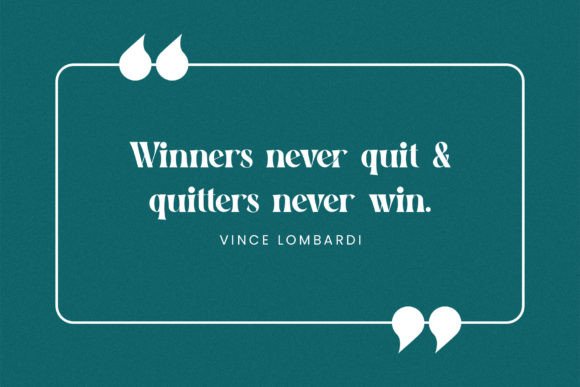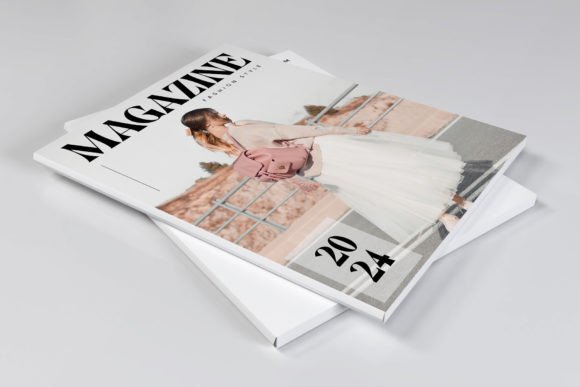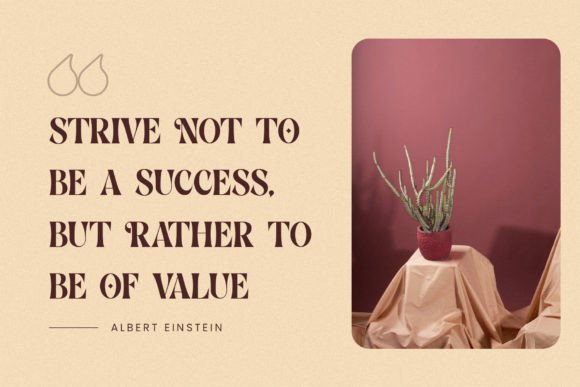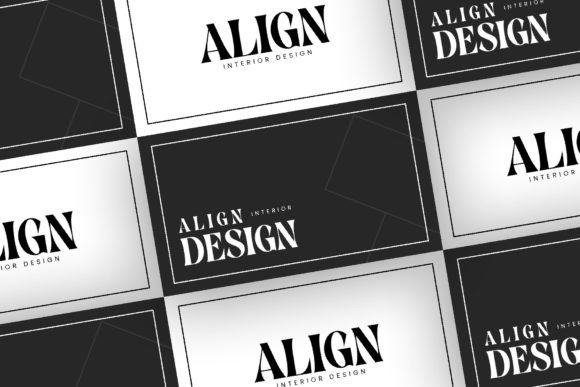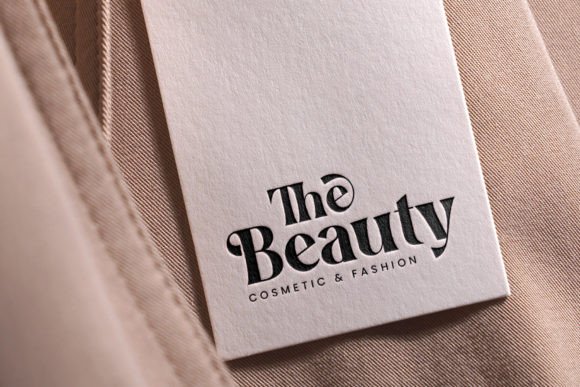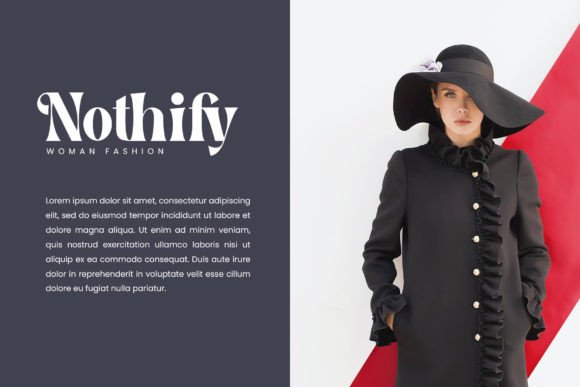
Introduction to Mothiva Font
As a designer, there’s nothing quite like the thrill of bringing a creative project to life. The hours of brainstorming, the countless iterations, and the final reveal – it’s a rush like no other. But what sets a truly exceptional design apart from the rest? For us, it’s all about the details – the subtle nuances that elevate a design from good to great. And that’s where the Mothiva Font comes in.
This stunning serif font is a game-changer for designers, offering a perfect blend of elegance and sophistication that’s sure to make your designs stand out. With its smooth, balanced lines and stylish flair, the Mothiva Font is the perfect addition to any project – from invitation cards to movie titles, and everything in between.
Key Features of Mothiva Font
- High-quality design: Mothiva Font is a premium-quality font perfect for creative projects requiring a unique touch.
- Unique characteristics: Mothiva Font features a distinctive and modern design, with a range of styles and weights that can be used to create visually appealing typography in your design.
Honest Review: Mothiva Font
As a designer, I’m always on the lookout for high-quality design resources to enhance my creative projects. Recently, I stumbled upon the Mothiva Font, and I’m excited to share my thoughts on this fascinating font.
What works well: ✨ The Mothiva Font has a unique, elegant design that adds a touch of sophistication to any project. The transparent background makes it easy to use in various design scenarios, from branding to digital art. I also appreciate the versatility of the font, which can be used for both print and web applications.
Overall, I’m impressed with the Mothiva Font’s design and functionality. It’s a valuable addition to any designer’s toolkit, especially for creative projects that require a unique and elegant touch. As a free download, it’s a steal!
- Unique, elegant design
The Mothiva Font is ideal for:
- Graphic design projects
- Brand identity design
- Print and digital designs